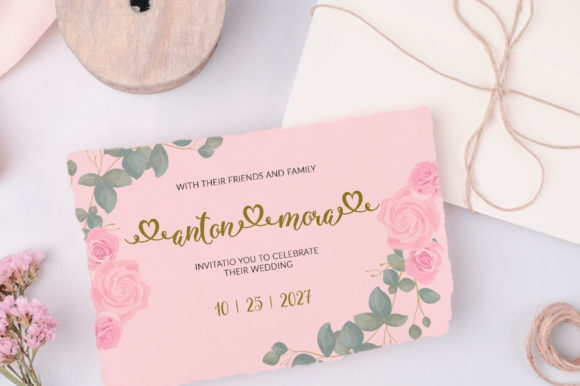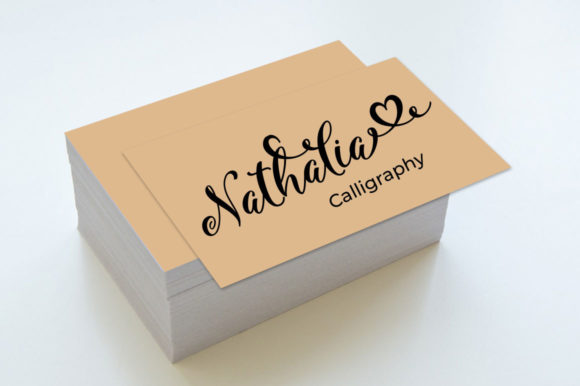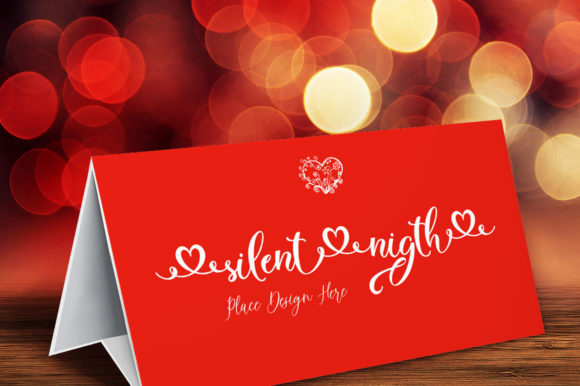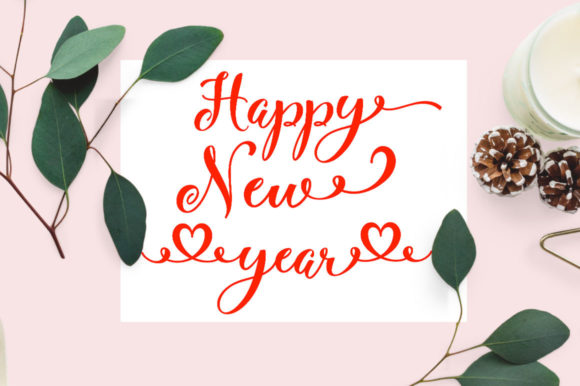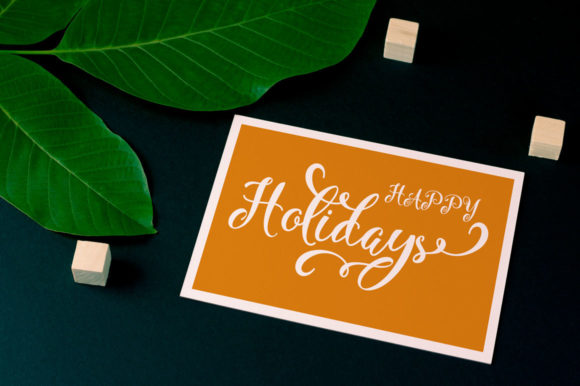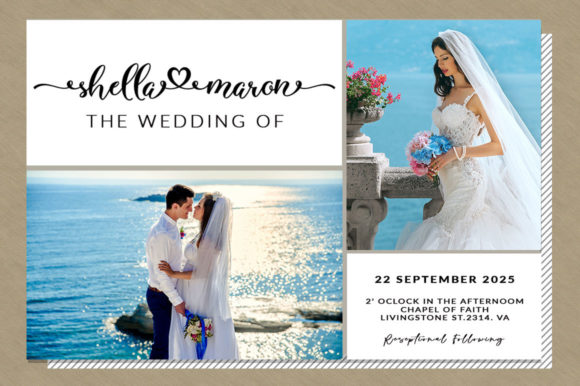
Introduction to Hi Love Font Font
Fonts play a crucial role in design, and the Hi Love Font font is a typeface that brings both character and versatility to any project. Whether you’re working on a branding project, a website, or a print design, the Hi Love Font font offers a unique style that can elevate your work.
Hi Love is a beautiful font perfect for your big events.
You can use it on wedding decorations, printed invitations, and business cards, It will make great social media posts This font is PUA encoded, which means you can access all of the glyphs and swashes with ease.
Key Features of Hi Love Font Font
Why Choose Hi Love Font Font?
The Hi Love Font font is more than just a typeface – it’s a design tool that helps you communicate your message with style and clarity. Its unique character set and versatile design make it suitable for a wide range of applications, from elegant invitations to bold headlines.
With its carefully crafted letterforms and balanced proportions, the Hi Love Font font ensures readability and visual appeal across all mediums.
What makes Hi Love Font font special?
The Hi Love Font font stands out with its unique design, exceptional readability, and versatility across various design applications.